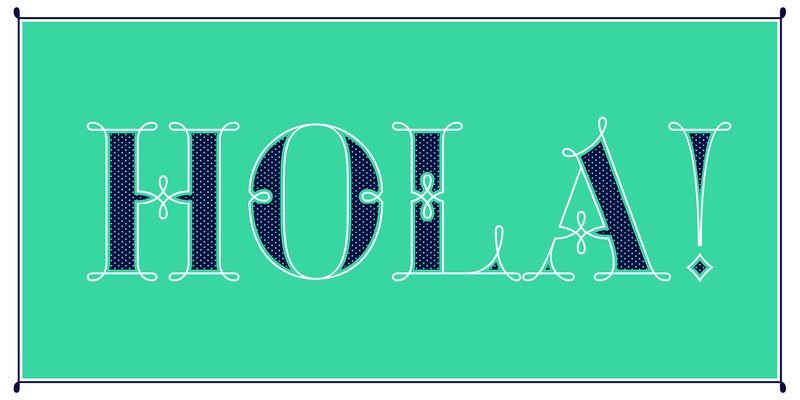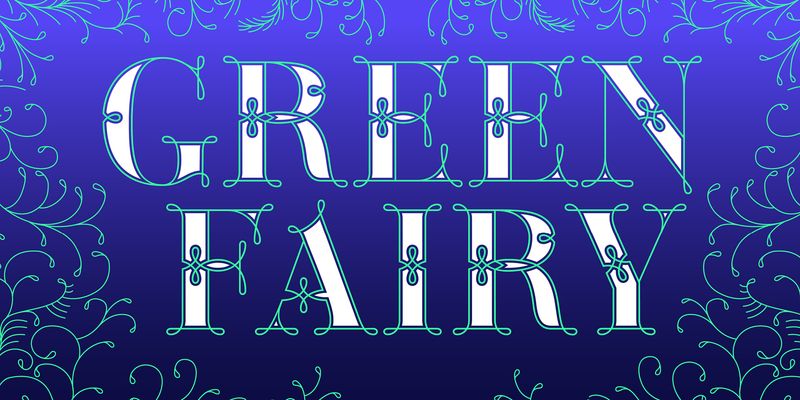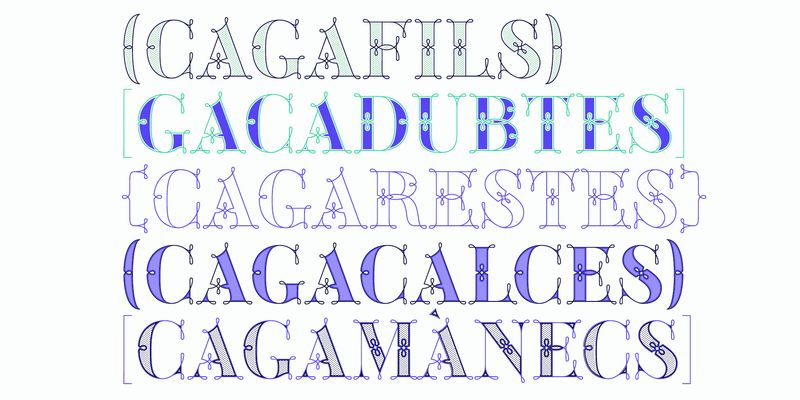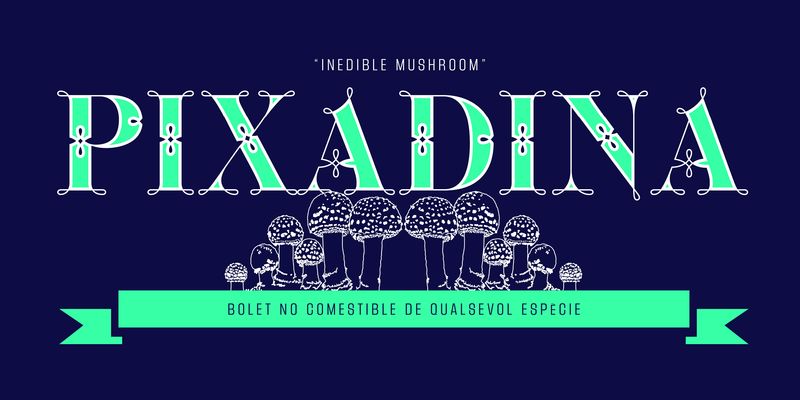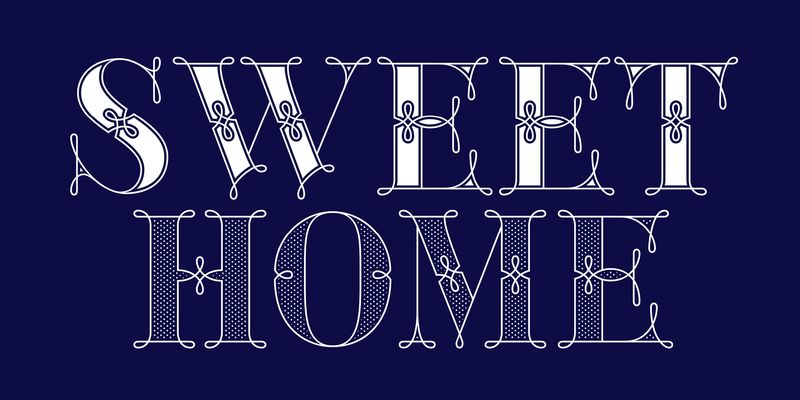
Green Fairy is a chromatic font family highly ornamented for display purposes. As its name suggests, this font has a sweet aroma inspired by the classic French Absinthe ritual. Green Fairy’s characters have been specifically designed to accommodate its loops following a modern typeface structure.